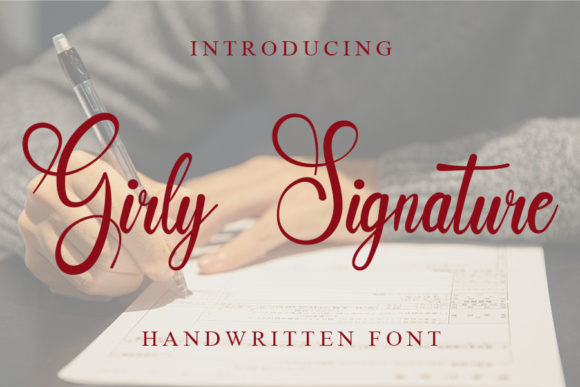
Behold, the remarkable Girly Signature Font - a handwritten masterpiece that captivates hearts with its delicate charm and swirling elegance. Stroke by stroke, this script font dances across the page, leaving a trail of graceful curves and playful flourishes that evoke a sense of whimsy and delight.
Immerse yourself in the world of Girly Signature - a font family that embodies the spirit of femininity and grace. With its flowing lines and enchanting characters, this font is perfect for adding a touch of elegance to any creative project. Whether you're designing invitations, crafting logos, or creating social media graphics, Girly Signature is sure to make a lasting impression.
Unleash your creativity and let your imagination soar with Girly Signature. This versatile font lends itself beautifully to a wide range of design styles, from the whimsical and playful to the chic and sophisticated. Its delicate strokes add a touch of refinement to any project, while its unique character set creates a sense of exclusivity and charm.
With Girly Signature, you'll have the power to transform ordinary words into enchanting works of art. Its enchanting curves and playful flourishes bring a touch of magic to every design, capturing the attention of your audience and leaving them spellbound.
So, why settle for ordinary fonts when you can embrace the captivating allure of Girly Signature? Let this remarkable font take you on a journey of creativity and expression, where your words dance with grace and your designs come alive with elegance.